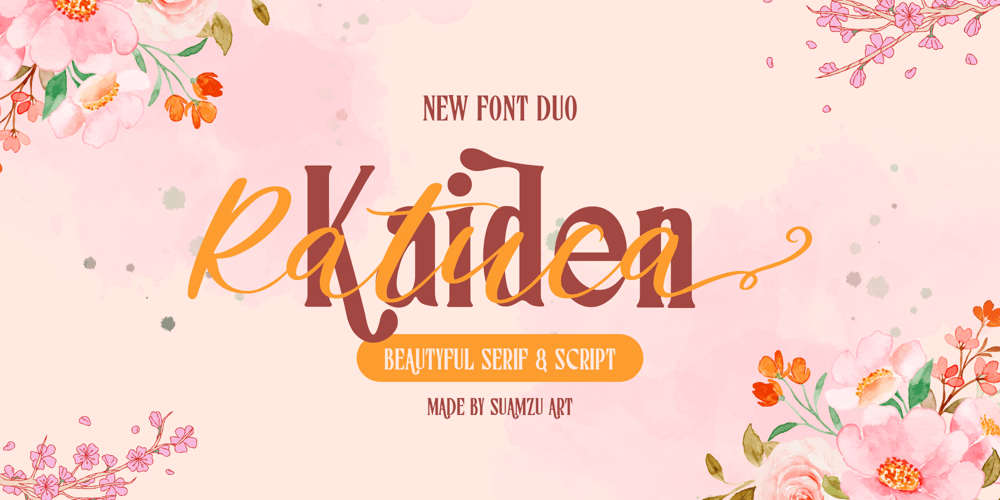
Ratuca Kaiden Display Font Family was designed by Amrullah Medan, Amrullah, Dedi Purwanto and published by Suamzu Art. Ratuca Kaiden Display contains 2 styles and family package options. Discover Ratuca Kaiden, the script font that redefines elegance. Its charming, consistent style and smooth curves effortlessly add a sophisticated touch to any project. Featuring unique alternate characters, it empowers you to create designs that are truly personalized and visually stunning. Perfect for wedding invitations and decor, Ratuca Kaiden infuses every detail with romance and charm, making your special day unforgettable. Need to impress clients? This font brings a sense of luxury and professionalism to business cards and corporate materials. From exclusive logos to elegant brochures, Ratuca Kaiden is your go-to choice for a classy, captivating aesthetic. Unleash your creativity and make every design stand out with Ratuca Kaiden – where elegance meets versatility.